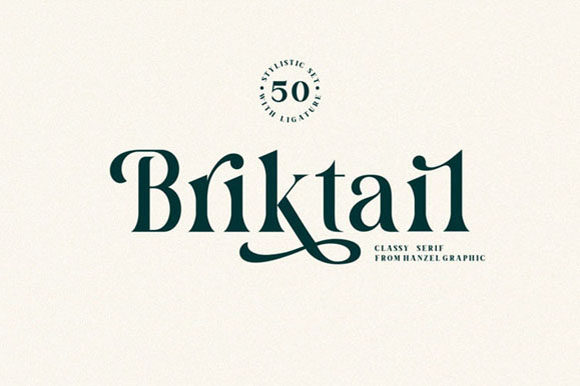
Prepare to be spellbound by Briktail, the captivating serif font that exudes a timeless charm and a touch of playful elegance. Its bold strokes, reminiscent of a bygone era, lend an air of sophistication to your designs.
With Briktail, you'll have at your fingertips a font that dances across the page, adding a touch of whimsicality to your creations. Its serifs, like delicate flourishes, add an undeniable touch of class to every word. Whether you're crafting invitations, designing logos, or simply adding a touch of flair to your social media posts, Briktail is the perfect choice.
But don't just take our word for it. Step into the world of Briktail and experience its transformative power firsthand. Feel the surge of creativity as it flows through you, shaping your words into works of art. Let its timeless elegance elevate your projects to new heights, leaving an unforgettable impression on your audience.
Briktail: Where classic meets contemporary. Where elegance meets fun. Dare to be captivated by its timeless allure.